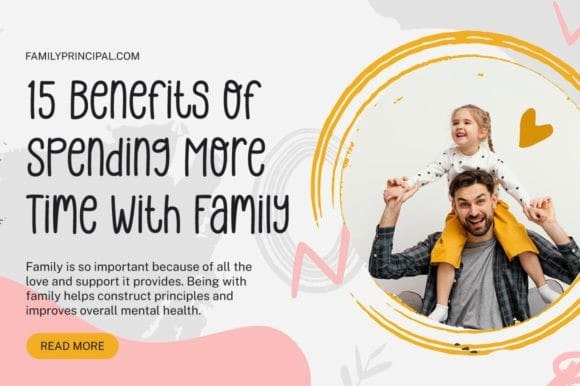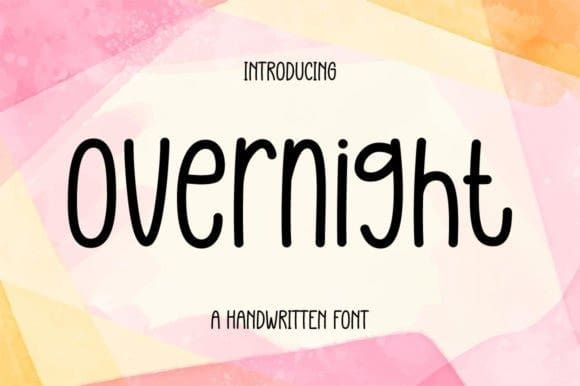
Overnight Hand Font
Overnight Hand Font is a cute and casual handwritten font. Dainty and joyful, this font will be ideal for writing wedding invitations, cards, or any other design that may need a romantic, personalized touch!